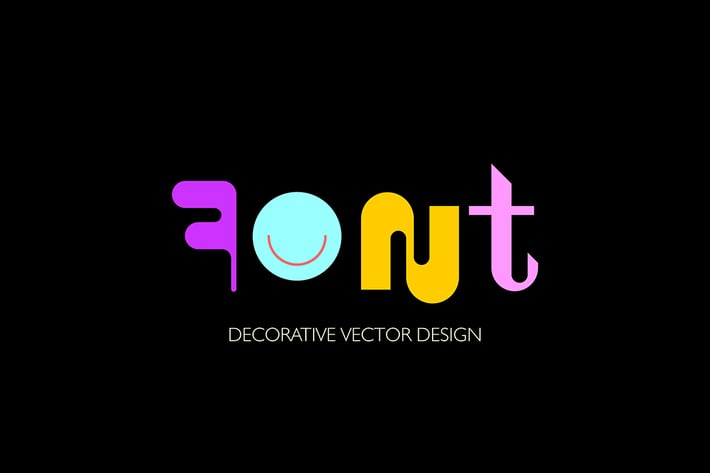
Colorful Decorative Vector Font
Decorative font vector design. Colored abstract font design isolated on a black and on a white backgrounds.
Art graphic illustration featuring the letters of the alphabet from A to Z.